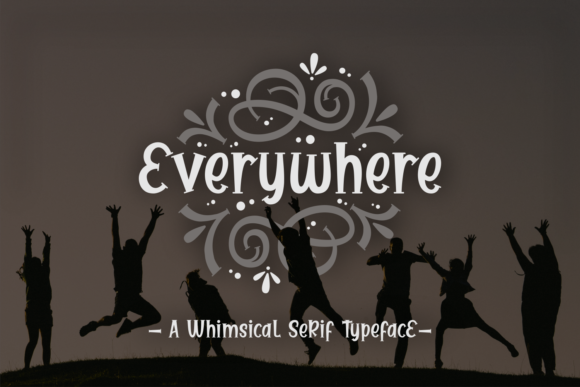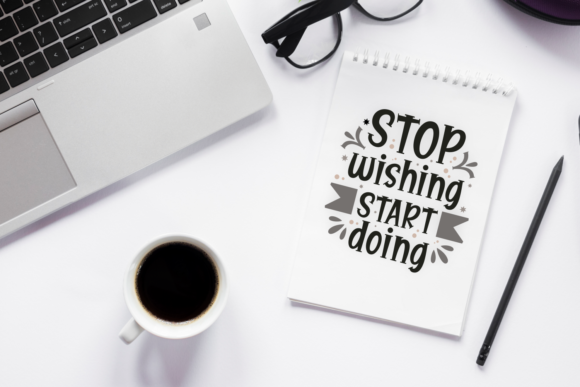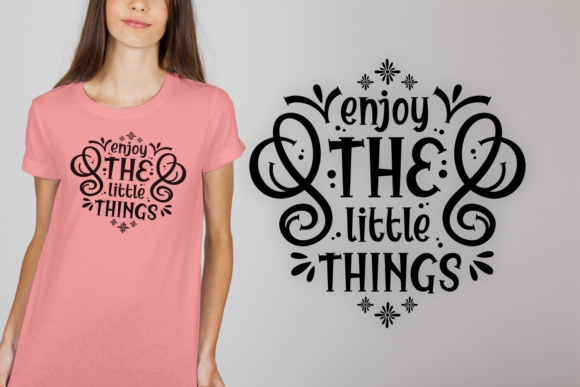
HomeScript FontsEverywhere Font Script Fonts Everywhere Font FacebookXPinterestWhatsApp Everywhere Font Poster 2 Everywhere Font Poster 3 About Everywhere Font Everywhere is a whimsical and charming handwritten font with a cute feel. Get inspired by its adorable sweetness. DOWNLOAD NOW People also explored Whisky Family Font Baladewa Font Mellia Script Font Jelly Milk Font Fast Notes Font Agnella Extra Black Font Home Alone Font Tornado Font Home Sweet Font 314 0 TagsEverywhere Font Previous articleMarienkaefer FontNext articleBridgesty Font LEAVE A REPLY Cancel reply Comment: Please enter your comment! Name:* Please enter your name here Email:* You have entered an incorrect email address! Please enter your email address here Website: Save my name, email, and website in this browser for the next time I comment. Personal Use Free Stronger Personal Use Free Read more about this font Amellis Path Personal Use Free Read more about this font Bruttney Personal Use Free Read more about this font Nugo Sans Personal Use Free Read more about this font BLOG The 10 Best Handwriting Fonts to Add Personality to Your Designs 10 of the Best Handwriting Fonts for Adding Personality to Your Designs There will undoubtedly be no other better choice than handwriting fonts to give... Fonts That Capture the Spirit of New York City How to Install and Use Fonts on Windows, macOS, and Web Projects To increase your work productivity, choose the most readable fonts.